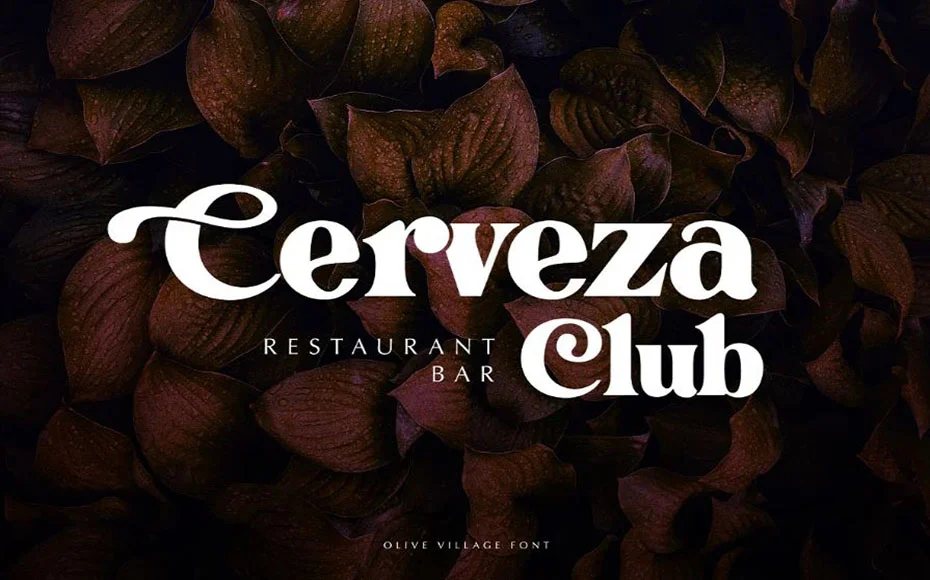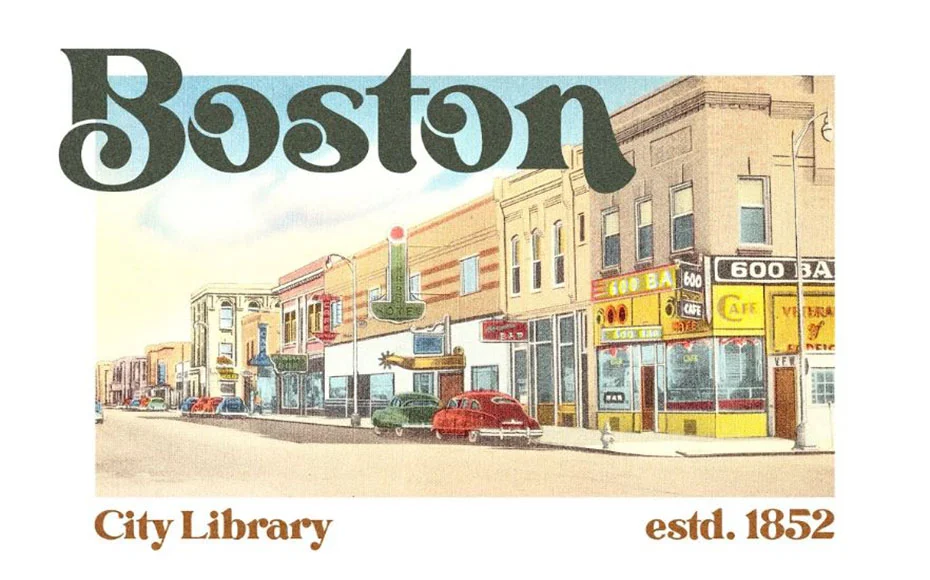
Olive Village Font is a stylish vintage font inspired by the groovy vibe of the 1970s with a touch of modernity. It looks amazing at display sizes and is easily readable in text size.
It comes with access to your OpenType features, and a large selection of alternate glyphs, and ligatures. There are two versions of this font: Regular and Italic. Olive Village is a display font made mainly for headlines, titles, and other short texts.
It is well-suited for advertising, vintage mood boards, branding, logotypes, packaging, titles, editorial design, and modern and vintage design.
Olive Village Font is a stylish and versatile font that can be used for a variety of purposes. It is a great choice for any designer looking for a font with a vintage vibe.
| Font Name: | Olive Village Font |
| Style: | Display, Vintage, Fancy |
| Font Designer: | Ivan Rosenberg |
Olive Village Font is a versatile font that can be used for a variety of purposes. It is a great choice for headlines, titles, and other short texts.
This texture is suitable for publication covers designs, ebook cover designs, note designs, and different types of documentation purposes designs. Also, you can use this modern look font for advertising purposes, poster designs, fabric designs, and social media post-design projects. It is great for branding projects, blouse designs, mug designs, theme designs, pants designs, and t-shirt designs purposes.